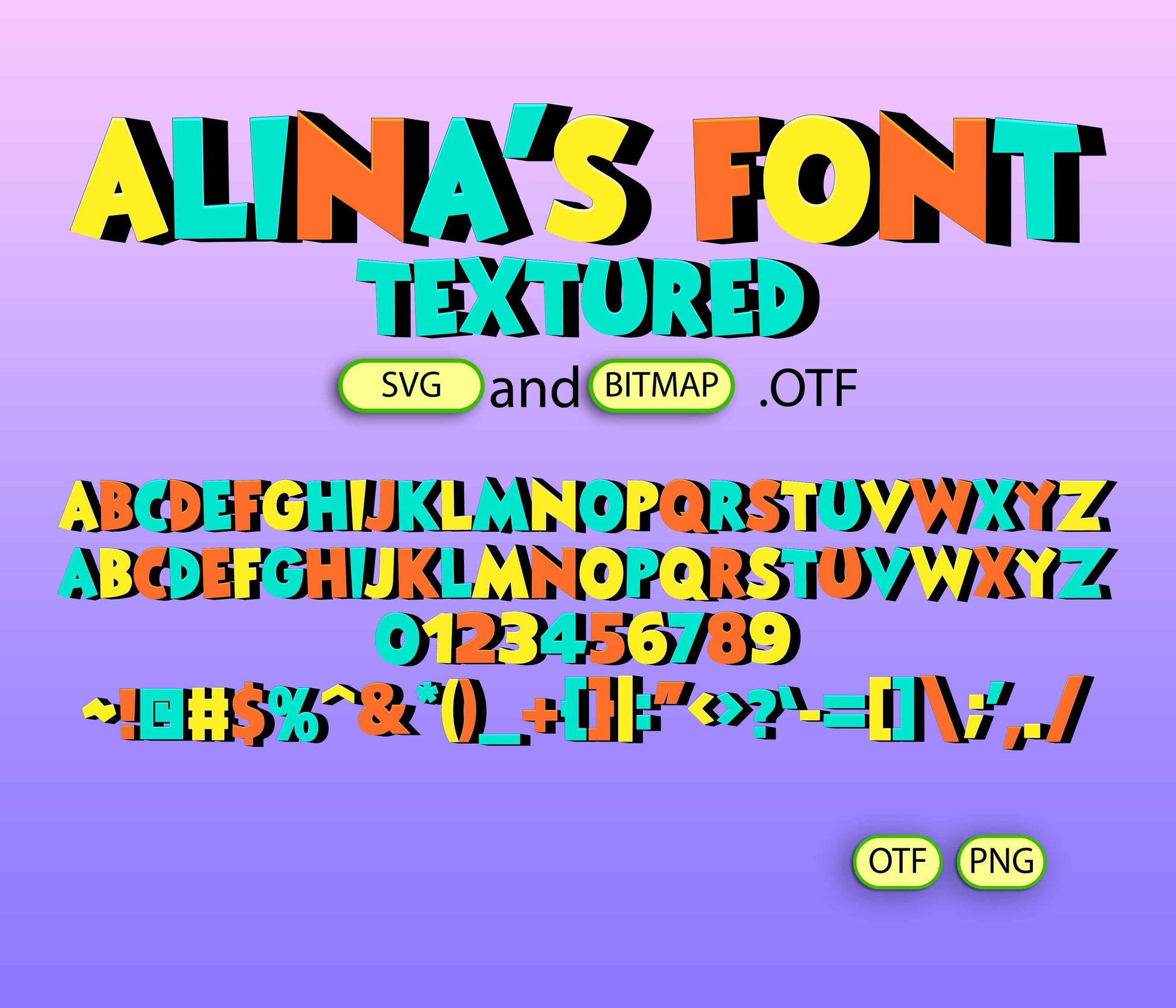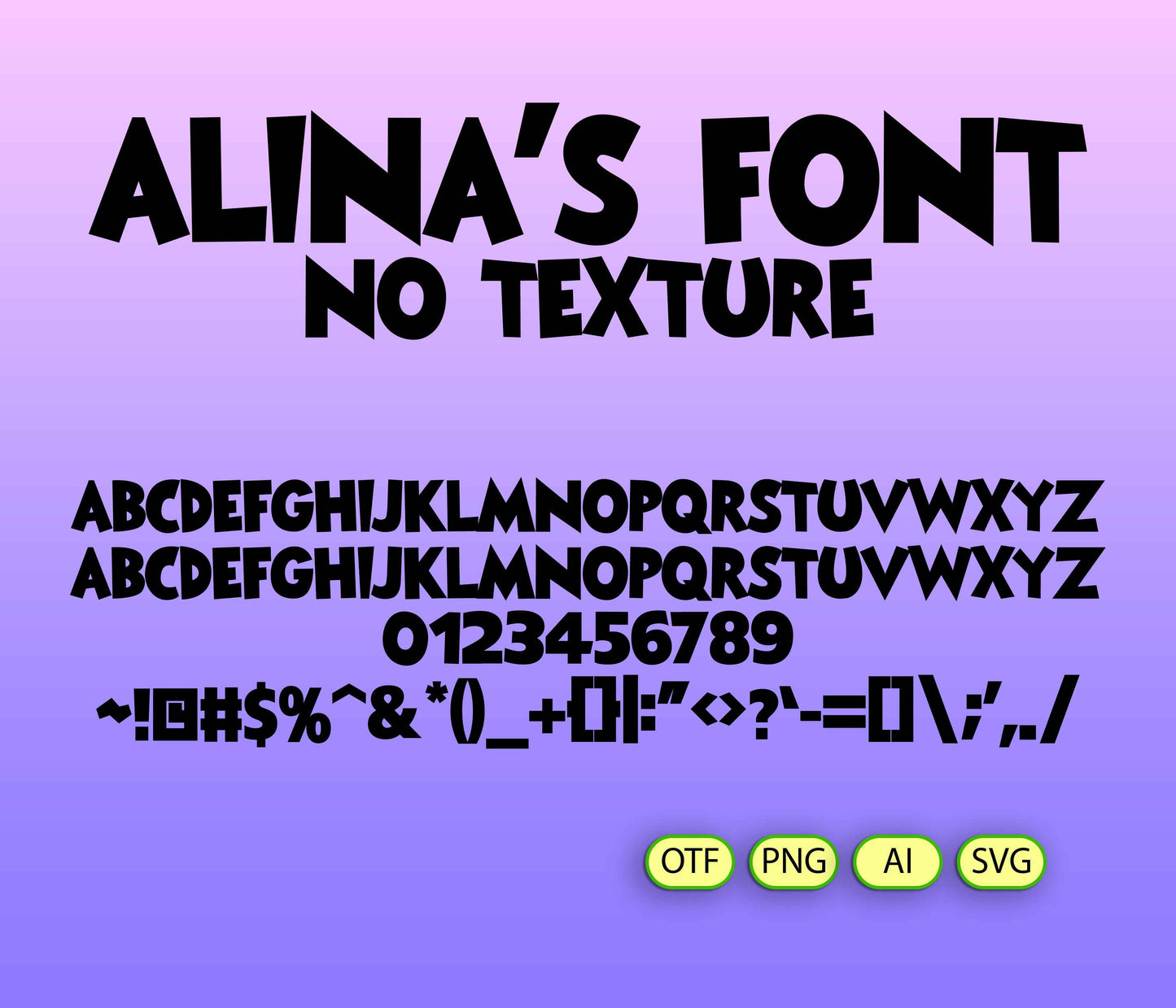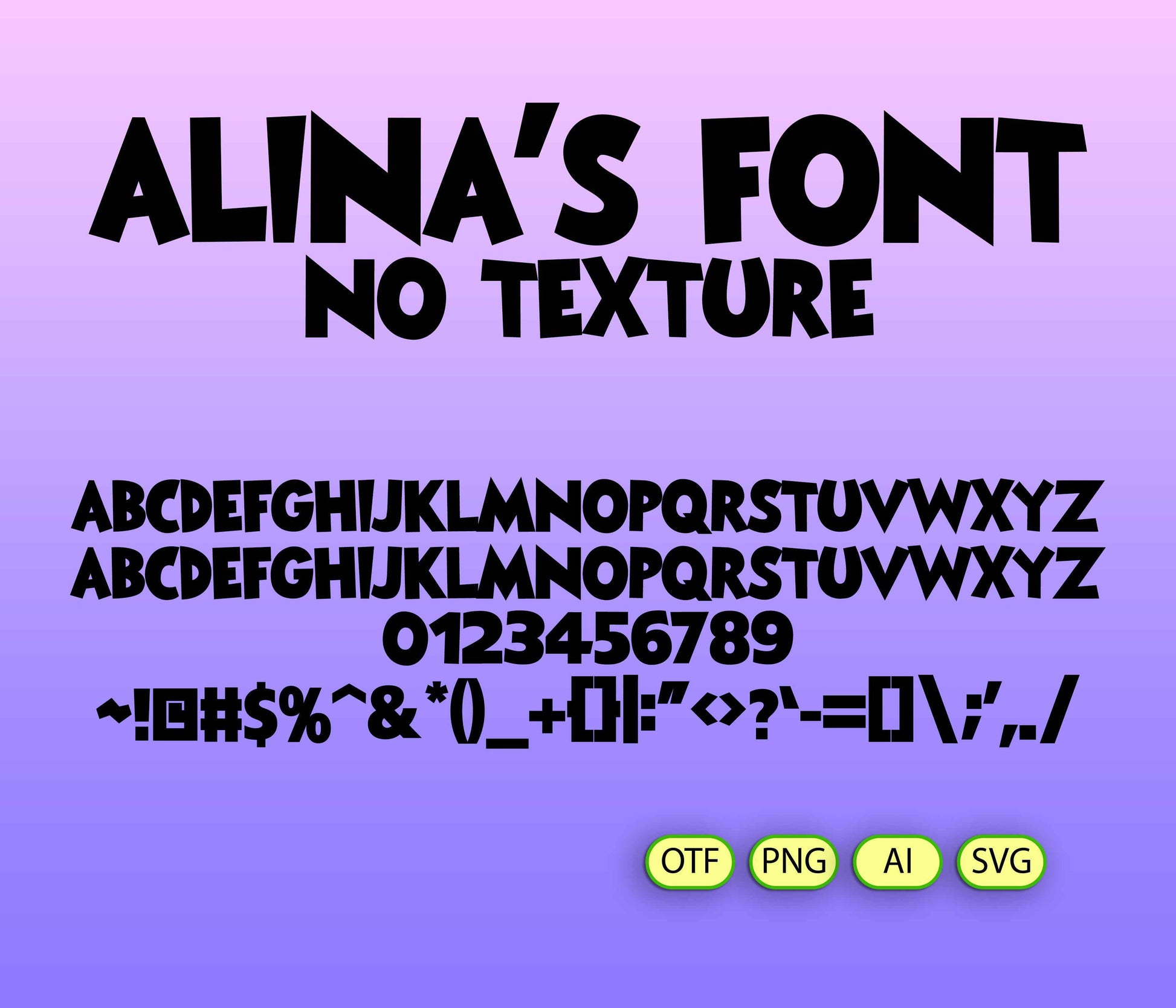
Urban Family Saga Font Textured
Urban Family Saga Textured Font 2024
Explore the vibrant world of a close-knit Latin American family with our inspired font, a lively and heartwarming tribute to an animated series known for its rich portrayal of cultural diversity, family dynamics, and urban life. This font captures the essence of a multi-generational family's adventures in a bustling city, embodying the humor, love, and multicultural experiences that define the show. Perfect for fans, creators, and anyone looking to infuse their projects with the spirit of togetherness and diversity, the Urban Family Saga font invites you to create designs that resonate with the themes of community, family, and the colorful tapestry of Latino heritage.
What font is the 'Urban Family Saga' font?
This inquiry unveils a typeface that echoes the animated vibrancy and cultural richness of the show. With characters that are as lively and expressive as the family itself, this font reflects the urban setting and the blend of traditional and contemporary Latino influences. The design is playful yet grounded, perfect for conveying a storytelling approach that combines everyday challenges with moments of joy and celebration. Its comprehensive character set ensures versatility, enabling you to craft messages that capture the essence of this urban family and their world.
• Comprehensive Character Set: Equipped with an extensive selection of characters to support a wide range of creative projects, from simple designs to complex compositions requiring special symbols.
The Urban Family Saga font is more than just a collection of characters; it's a celebration of family, culture, and the vibrant life within a diverse community. Whether used for personal projects, fan communities, or commercial endeavors, this font adds a layer of warmth and authenticity, making every creation a tribute to beloved family-oriented series. Dive into the world of urban family adventures, and let your designs reflect the joy, challenges, and adventures of life in a bustling, multicultural city.